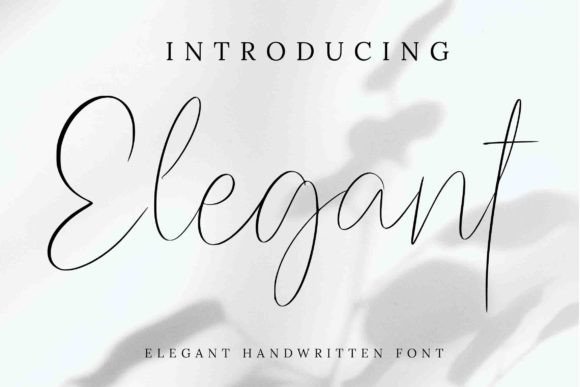
The Perfect Script: Unveiling Elegant Font
Have you ever been captivated by the soft curves and delicate strokes of a handwritten font, making you want to pick up a pen and start writing? I’m sure you have, and that’s exactly what Elegant Font is all about. This beautifully crafted script font is designed to evoke a sense of sophistication and elegance, perfect for making a lasting impression on your audience.
Elegant Font is a versatile and highly sought-after script font, ideal for product packaging, branding projects, magazines, watermark photography, social media, wedding invitations, and much more. As a designer, you’ll appreciate the flexibility and versatility that Elegant Font offers, allowing you to add a touch of sophistication to any project.
Elegant Font Key Features
- Unique Characteristics: Elegant Font boasts a unique blend of modern and classic elements, featuring elegant lines, refined curves, and subtle flourishes that set it apart from other fonts.
- Language Support: The font supports over 200 languages, making it an ideal choice for global brands and organizations that require a font that can adapt to diverse linguistic needs.
- Scalability: Elegant Font is designed to be highly scalable, ensuring that it remains legible and visually appealing across a wide range of screen sizes and devices.
- Professional Touch: The font’s sophisticated design and refined aesthetic make it perfect for use in corporate branding, publishing, and other high-end applications where a touch of elegance is required.
Elegant Font Review
I’ve had the chance to work with the Elegant Font, and I must say, it’s a real showstopper! ✨ Here are some of the things that really stood out to me.
- Legibility: This font is incredibly easy to read, even at small font sizes. It’s perfect for body text or headings where clarity is key.
- Flexibility: Elegant Font comes in a range of weights, from light to bold, making it suitable for a variety of design projects.
- Professional Look: The font has a sophisticated, elegant feel that’s perfect for high-end branding, business documents, or any project where you want to make a good impression.
Of course, no font is perfect, and Elegant Font has its limitations.
- Limited Expressiveness: While Elegant Font is great for formal projects, it may not be the best choice for more playful or creative designs.
Overall, I’d say Elegant Font is a solid choice for any project where you want to convey a sense of professionalism and sophistication. It’s not the most exciting font out there, but it gets the job done beautifully.
The Elegant Font is ideal for:
- Blog posts and articles.
Tips for Getting the Most Out of Elegant Font
To get the most out of Elegant Font, try:
- Pairing it with a serif font for a classic look.
- Using it in bold or italic styles for emphasis.
- Experimenting with different font sizes and colors.
- Choose a high-end wedding invitation template or create your own from scratch.
- Use Elegant Font to typeset the wedding details, such as the date, time, and location.
- Pair Elegant Font with a elegant font combination, such as a serif font like Garamond or Playfair Display.
- Use a metallic foil stamp or gold leaf to add a touch of luxury to the invitation.
- Choose a high-quality paper or cardstock to give the invitation a premium feel.
- Consider adding a custom illustration or design element to complement the Elegant Font.
- Choose a clean and simple typography-based logo design.
- Use Elegant Font to typeset the brand name, and pair it with a simple icon or symbol.